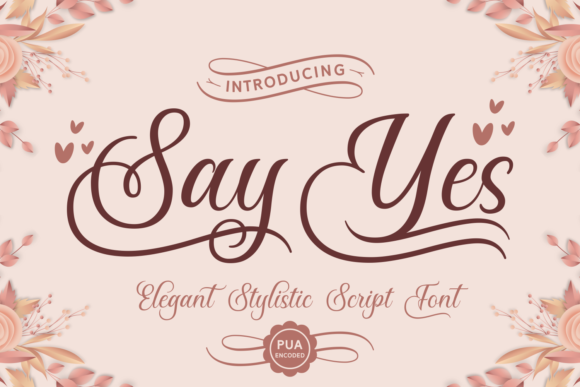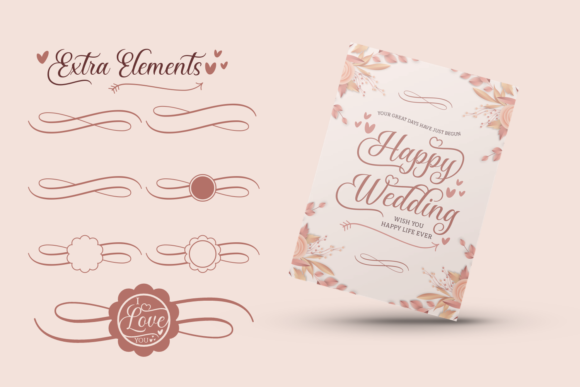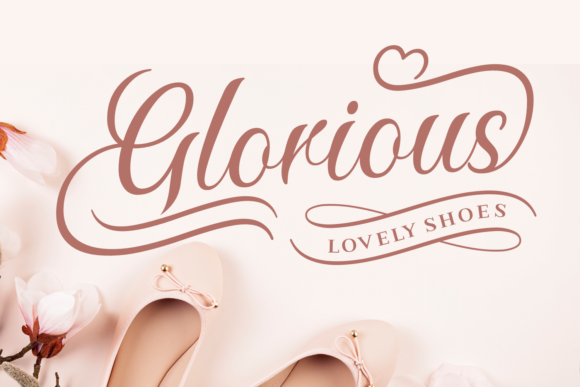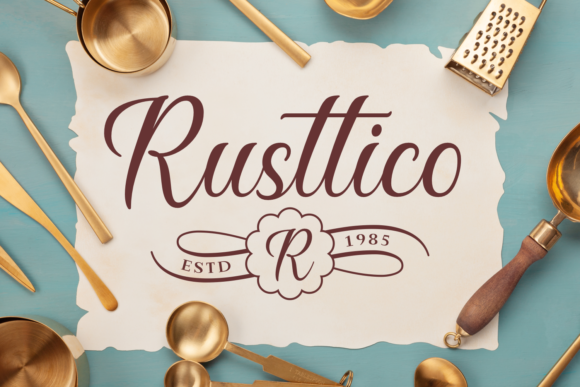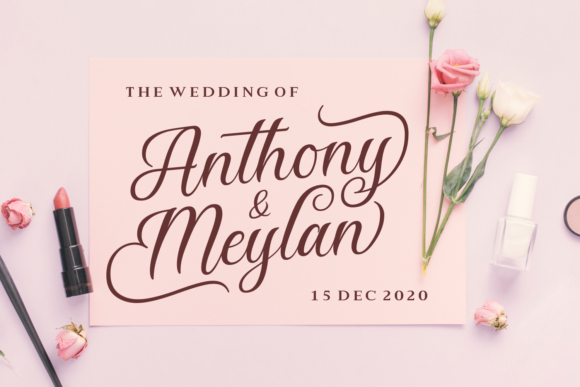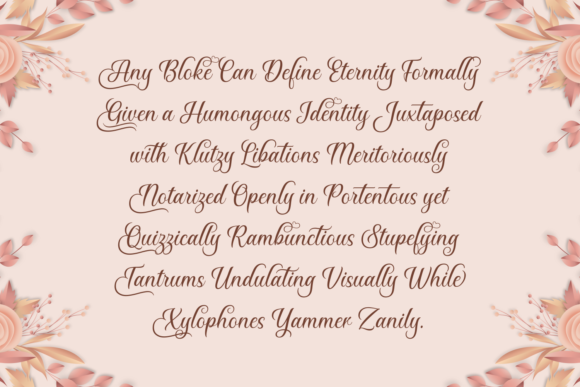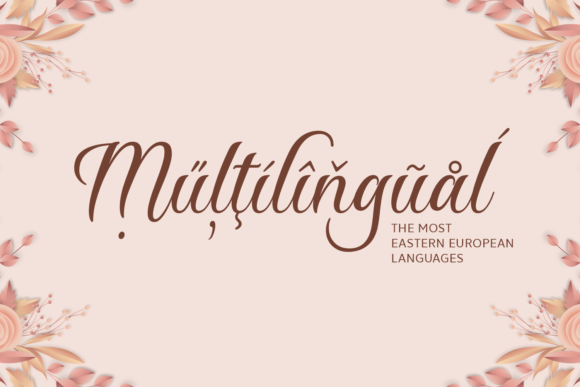
HomeScript FontsSay Yes Font Script Fonts Say Yes Font FacebookXPinterestWhatsApp Say Yes Font Poster 2 Say Yes Font Poster 3 Say Yes Font Poster 4 Say Yes Font Poster 5 Say Yes Font Poster 6 Say Yes Font Poster 7 About Say Yes Font Say Yes is an elegant script font with a romantic appearance. Fall in love with its flowing curves! DOWNLOAD NOW People also explored Lemon Juice Font The Sewing Font Kintanya Font Bahor Font Derick Chetty Font Kayla Font Glitter Font Vintage Handmade Font Yay! Font 261 0 TagsSay Yes Font Previous articleAlways Dream Big FontNext articleLeisoll Reef Font LEAVE A REPLY Cancel reply Comment: Please enter your comment! Name:* Please enter your name here Email:* You have entered an incorrect email address! Please enter your email address here Website: Save my name, email, and website in this browser for the next time I comment. Personal Use Free Welliana Personal Use Free Read more about this font Astagina Signature Personal Use Free Read more about this font 1313 Mockingbird Lane Personal Use Free Read more about this font Borg Personal Use Free Read more about this font BLOG Free Fonts Risk: Why Free Fonts Can Be Dangerous for Designers Free Fonts Risk: Why Free Fonts Can Be Dangerous for Designers Using free fonts is a common practice in web and graphic design. However, the... Best Fonts for YouTube Videos: Make Your Thumbnails Stand Out The 10 Best Handwriting Fonts to Add Personality to Your Designs To increase your work productivity, choose the most readable fonts.